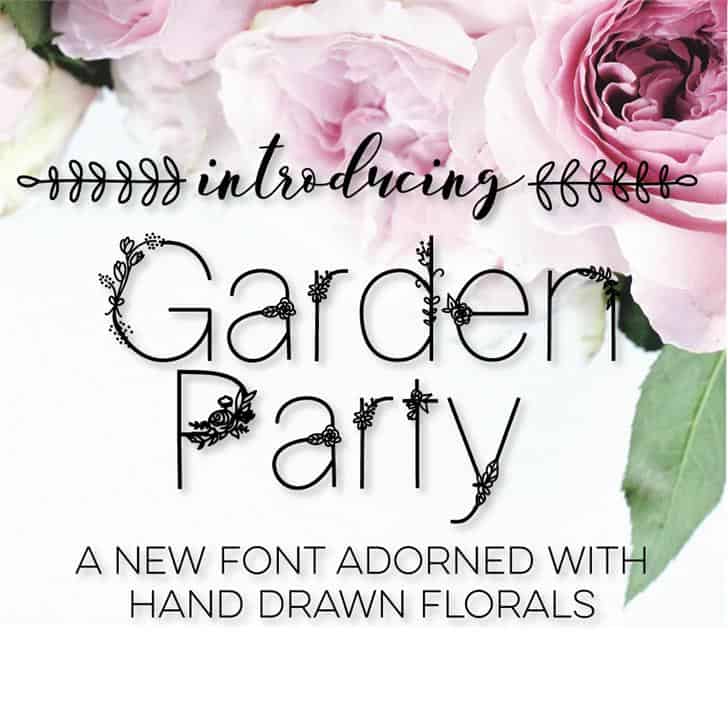
gardenparty
Enjoy the beauty of nature in your texts with our Gardenparty font.
Step Into the Garden with Gardenparty Font
Welcome, nature-lovers and typophiles alike! We are glad to present our latest gem, the Gardenparty font. This exquisite typeface provides an excellent blend of legibility and charm, perfect for those wishing to bring a touch of the outdoors into their digital projects.
Why Choose the Gardenparty Font?
The Gardenparty font brings a unique yet calming aesthetic to your text. Inspired by the beauty of nature, this font adds soul to your materials, making them relatable and easily discernible among countless others.
Here are some of the reasons why the Gardenparty font can be just what you’re looking for:
Versatility: Whether it’s for personal blog titles, company logos, or informative posters, the Gardenparty font fits in seamlessly.
Readability: Despite its decorative and artistic design, Gardenparty maintains a high level of readability, ensuring your messages are not lost in the design.
-
Nature-inspired: Gardenparty’s design draws inspiration from the relaxing and homely feel of garden parties, making it perfect for comfier and nature-related themes.